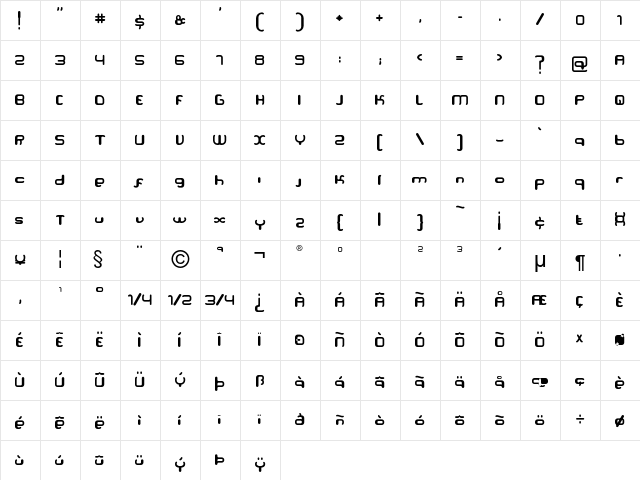
Serpi Regular Free Font
Serpi Regular
Foundry: Alberto villanueva
Designer: Alberto Villanueva
Serpi Family
Serpi Regular
Design Context for Serpi
Serpi is a composed and adaptable typeface that performs quietly and consistently across a wide range of design contexts.